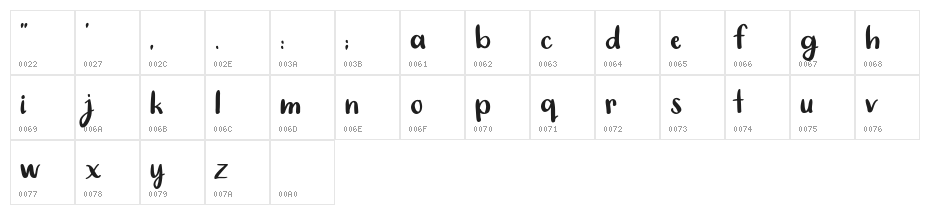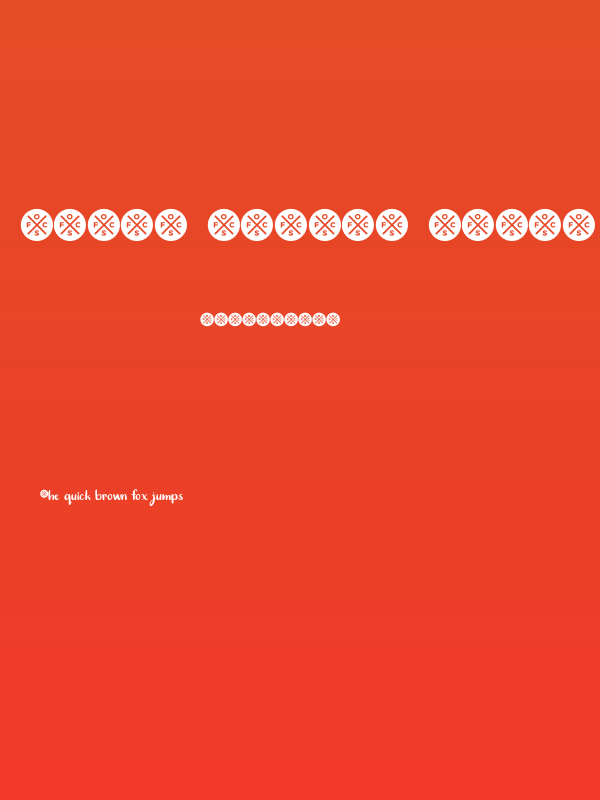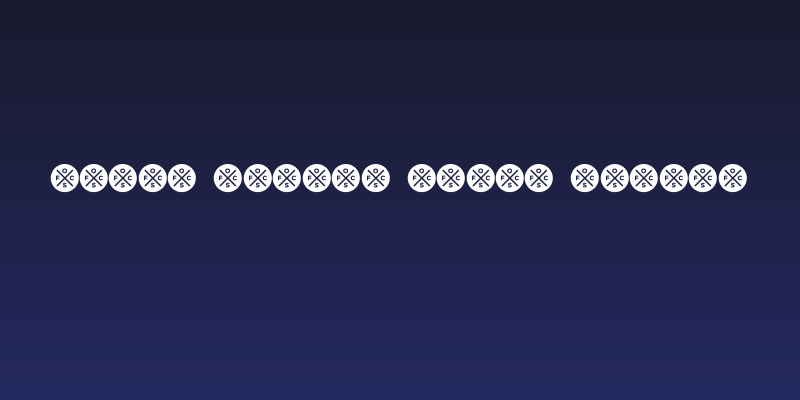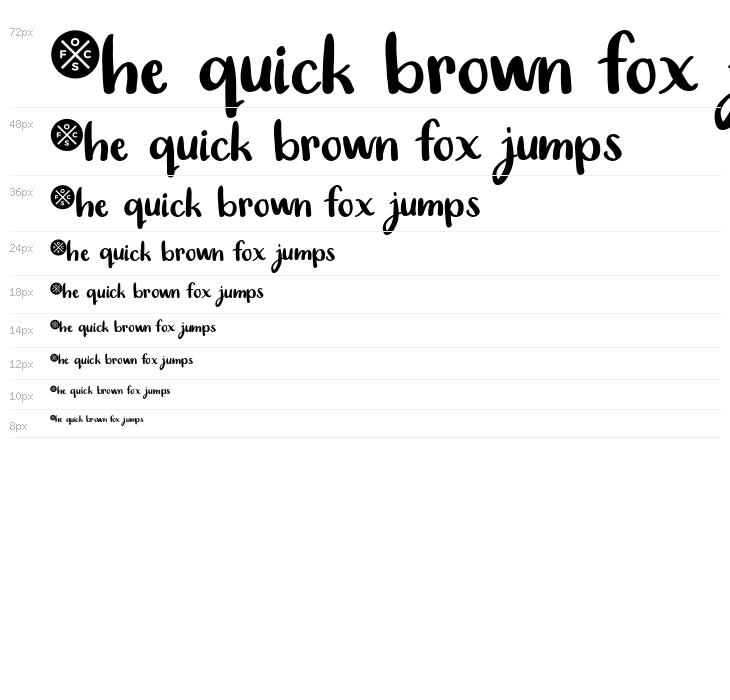
Super Simple Brush Script Font
Super Simple Brush Script Description
This font is a playful and expressive script style that mimics the fluidity and spontaneity of hand-drawn brush strokes. The characters are bold and rounded, with a natural flow that gives a sense of movement and energy. The lowercase letters are particularly distinctive, with unique flourishes and varying stroke widths that add to the font's dynamic appearance. This style is perfect for projects that require a personal touch or a creative flair, as it captures the essence of casual handwriting with a modern twist.
| Use Case | Logos, Headlines, Creative projects |
| Proposed Projects | Ideal for greeting cards, invitations, branding, social media graphics, and creative posters. |